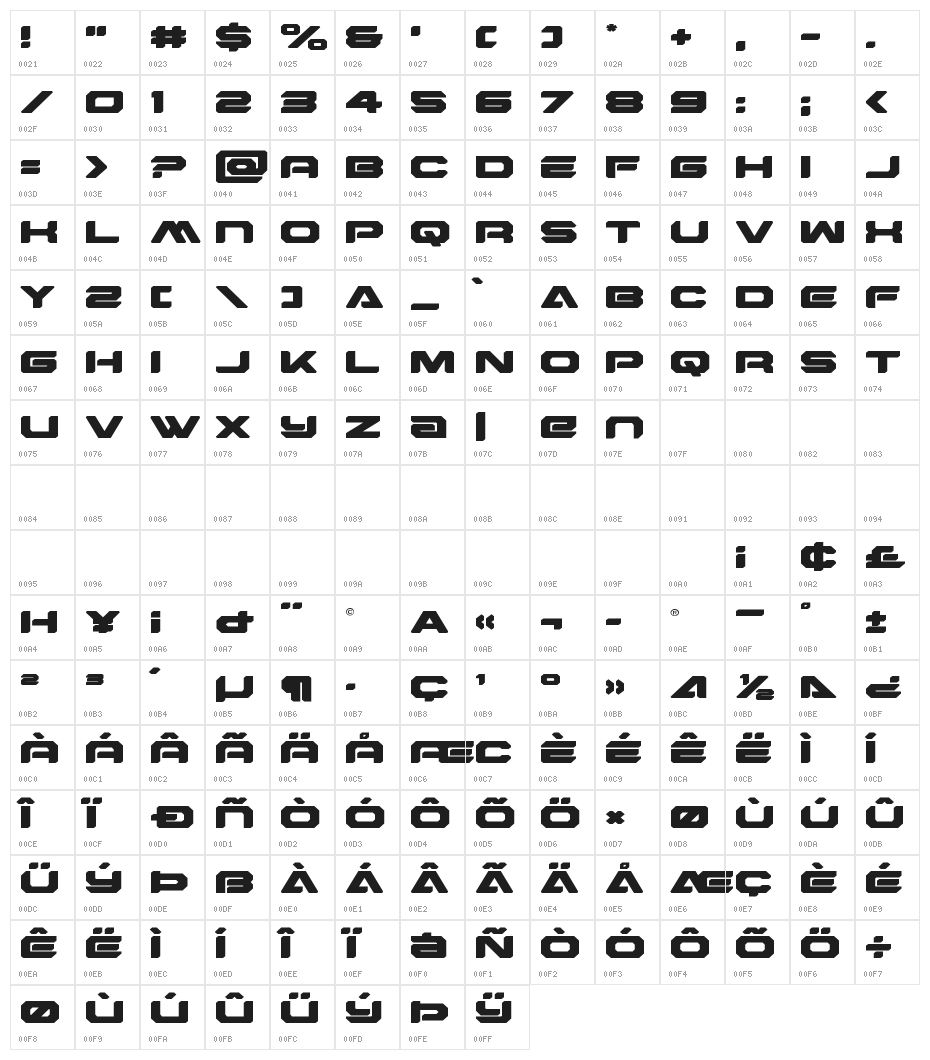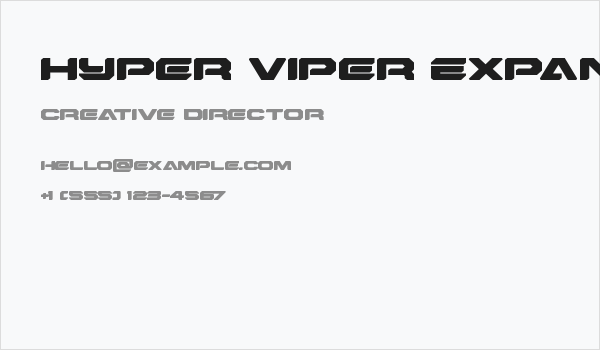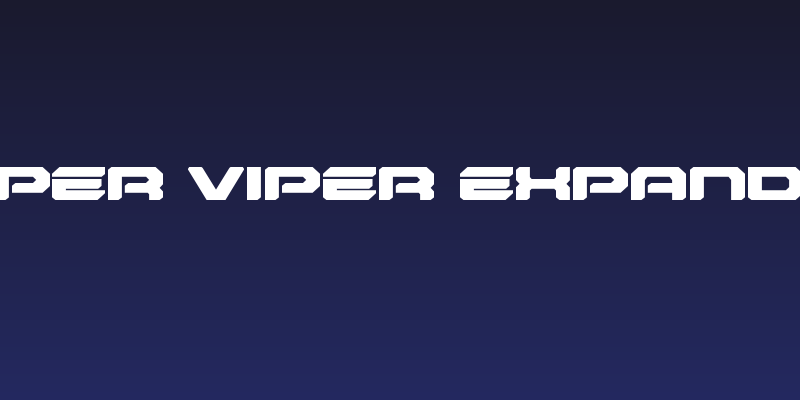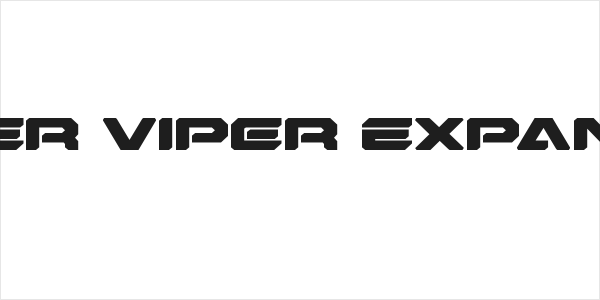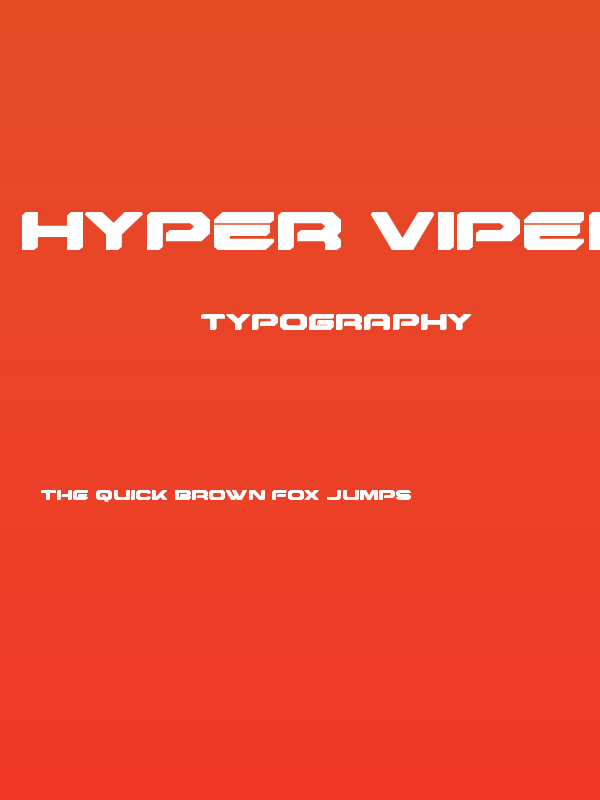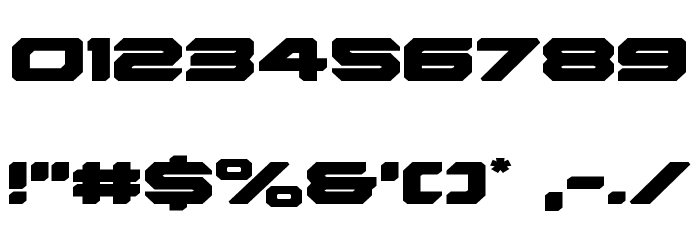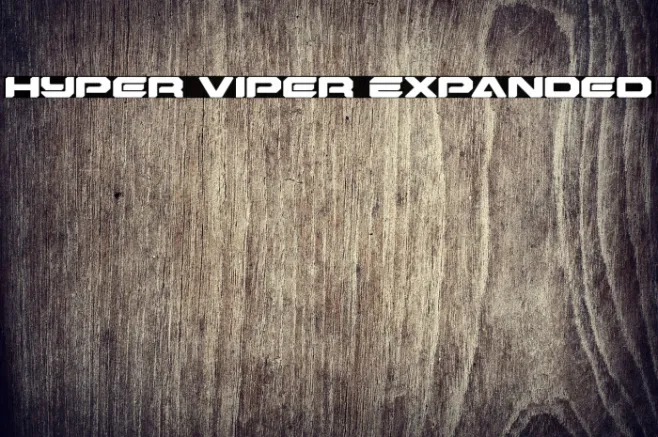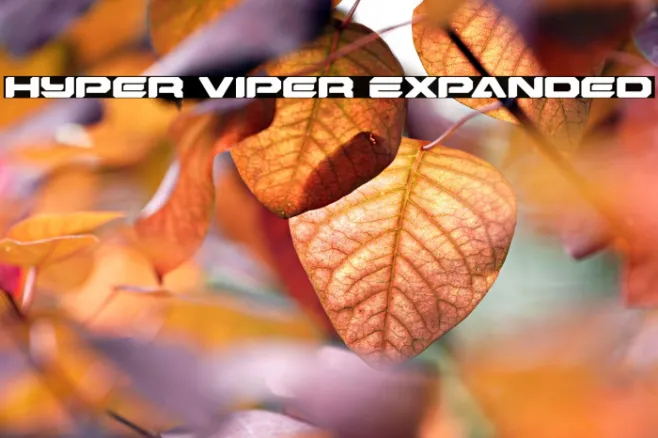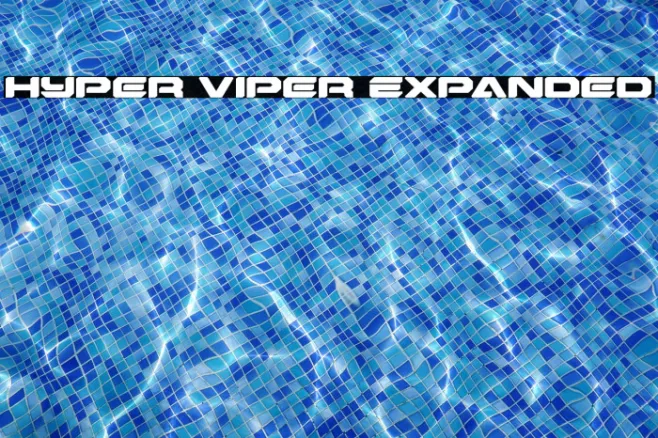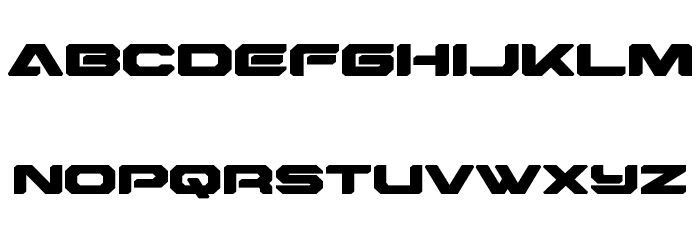
Hyper Viper Expanded Font
Hyper Viper Expanded Description
This font features a bold, futuristic design with a distinctly angular and geometric style. The characters are wide and have a strong presence, making them ideal for impactful headlines or logos. The uppercase letters are particularly striking, with sharp edges and a consistent thickness throughout. The numbers and special characters maintain the same bold and angular aesthetic, ensuring a cohesive look across all text. The font's expanded width and tight character spacing contribute to its modern and dynamic appearance, making it suitable for projects that require a bold statement.
| Proposed Projects | Ideal for sci-fi themed designs, video game titles, technology branding, and bold posters. |